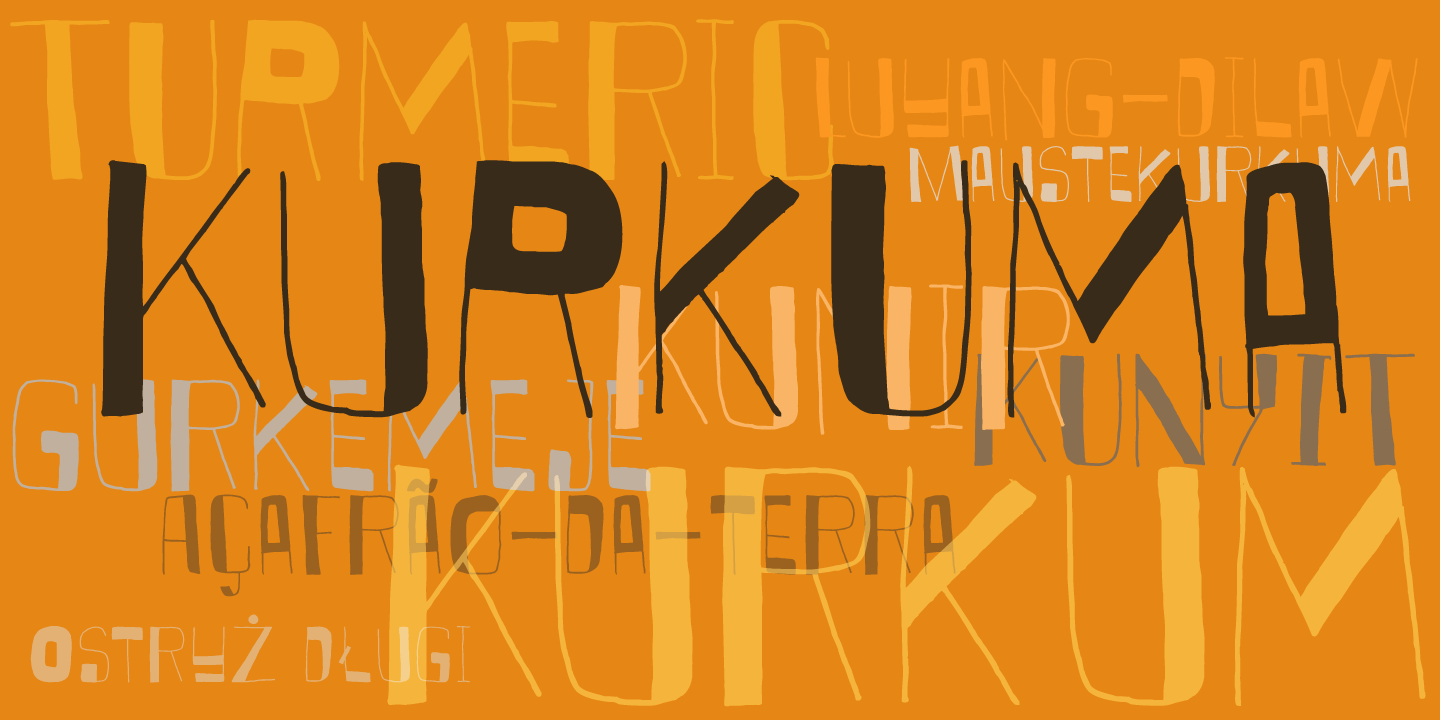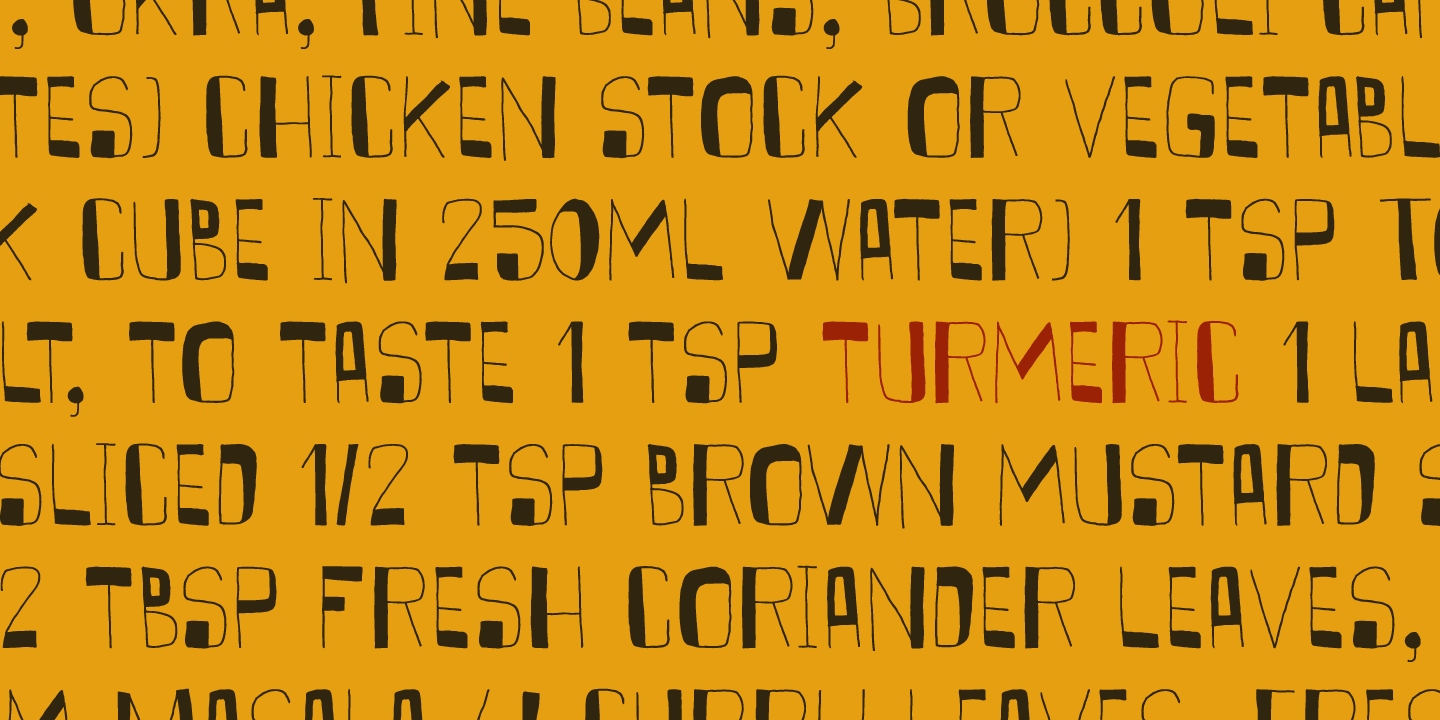
Kurkuma
Kurkuma (Turmeric in Dutch) is a spice I use in all of my curries. And I love curry! It's not more than fair to name a font after my favorite ingredient, so here you have it: Kurkuma. It is a unique and somewhat bizarre font with both an angelic and a diabolical side. I wouldn't set a whole text in it, but it does look great in headlines, posters and websites.